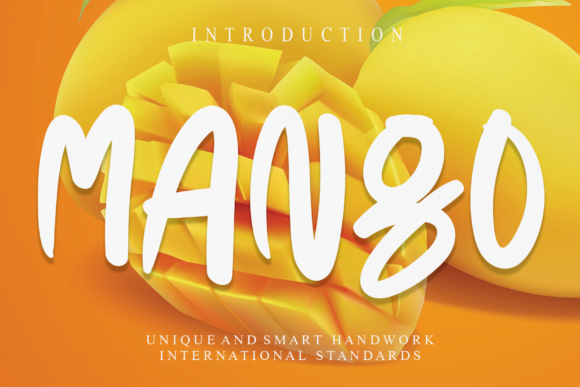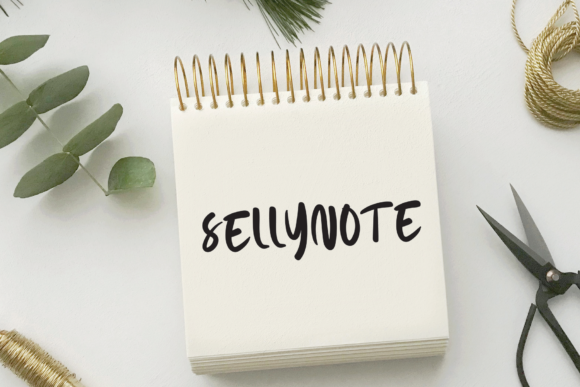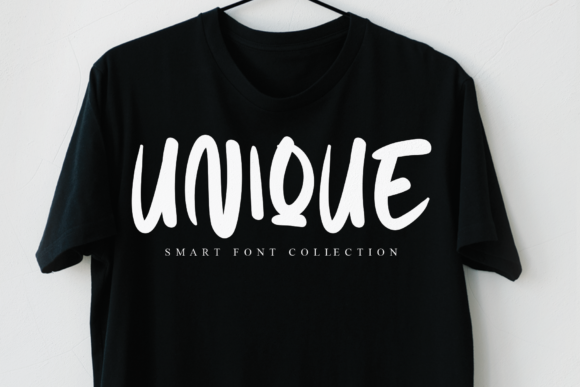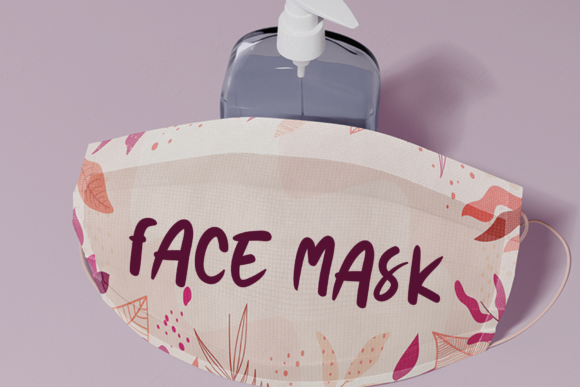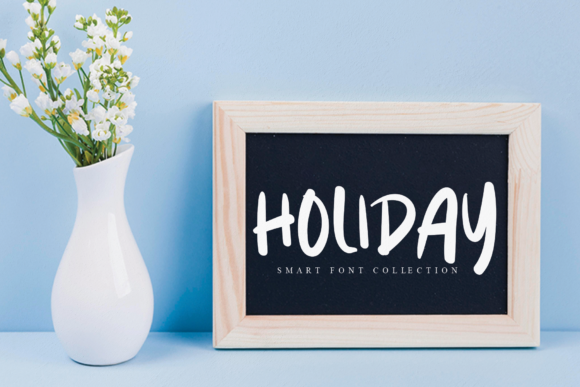
Mango Font
About Mango Font
Mango is a bold and fun handwritten font that adds a vibrant and playful touch to your designs. With its lively style and versatile nature, this font is sure to bring a burst of energy to your creative projects.
The boldness of Mango font makes it visually striking and attention-grabbing. Its strong letterforms and distinct personality contribute to a visually pleasing aesthetic that catches the eye. Whether you’re working on branding, packaging, posters, or any other design project, Mango font enhances the overall visual appeal with its bold and fun demeanor.
Using Mango font allows you to inject a sense of fun and excitement into your designs. Its handwritten appearance adds a personal and organic touch, making your designs feel lively and engaging. This font exudes a playful vibe, making your compositions visually appealing and enjoyable for your audience.
The neat style of Mango font ensures that your designs have a clean and cohesive look. Its well-balanced letterforms and consistent strokes create a sense of order and professionalism, allowing you to maintain clarity and legibility even in more elaborate compositions.
Mango font’s versatility enables you to explore endless variations and creative possibilities. Whether you’re using it for headlines, titles, or as a playful accent in your designs, Mango font adds a pop of fun and liveliness.
Incorporating Mango into your design projects empowers you to create visually captivating and vibrant visuals. Its bold and fun handwritten font adds a touch of energy and enhances the overall impact of your designs.
In summary, Mango is a bold and fun handwritten font that brings a vibrant and playful touch to your designs. Its strong letterforms and distinct personality create a visually striking and engaging aesthetic. Embrace the versatility of Mango font and let it enhance your designs with its neat style and endless variations, making them visually captivating and full of energy.